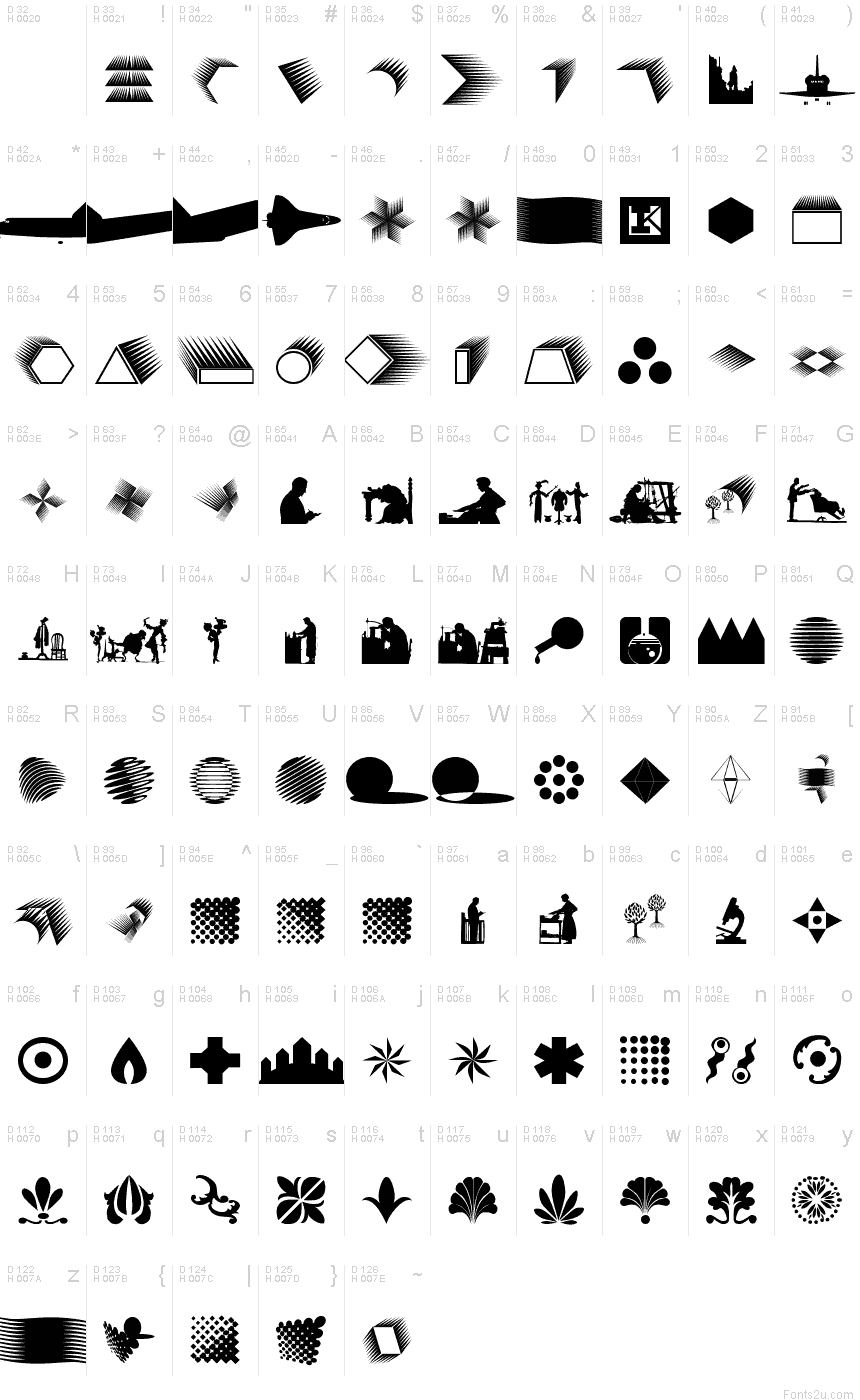
AbstractConcretLogo by Manfred Klein is a free silhouette dingbat font built from human figures, stylized flowers, and curling ornamental forms. Its solid shapes read like compact cut-paper emblems.
Editorial illustration and event branding can use the collection in quite different ways, yet both benefit from its instantly recognizable profiles. Botanical symbols also suit invitations, gift packaging, and arts merchandise, where their broad curves have a decorative folk-art quality. These icons can become part of an illustrated scene or repeat as a simple pattern, rather than functioning only as labels.